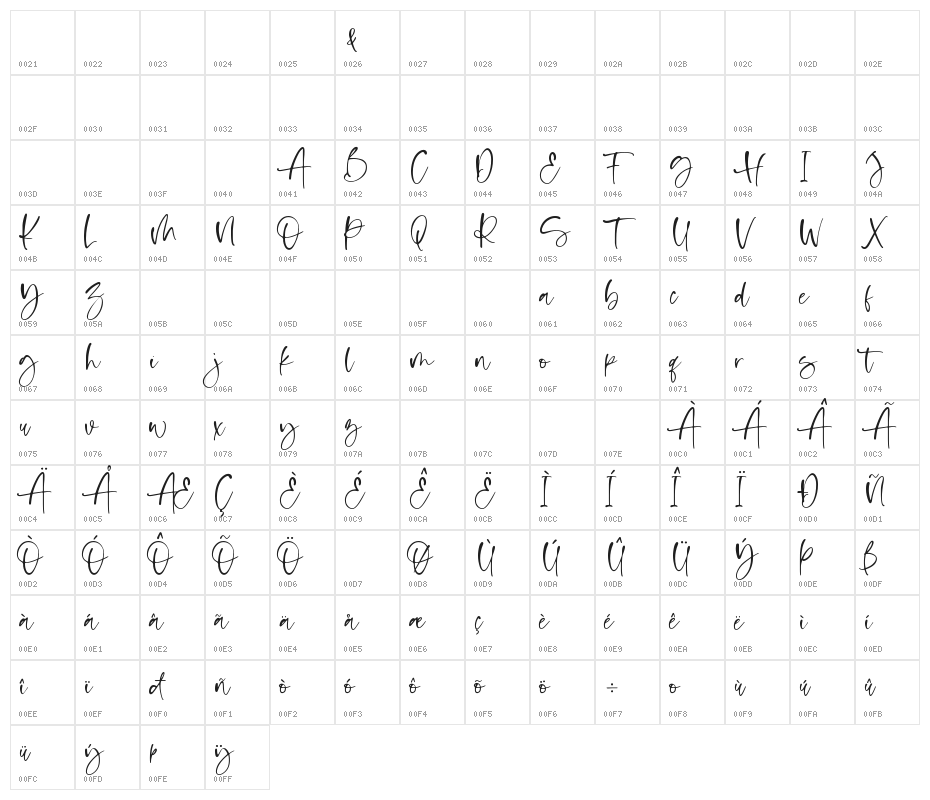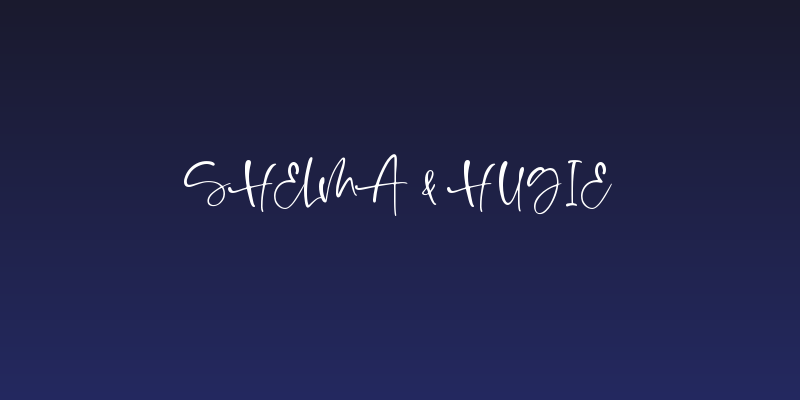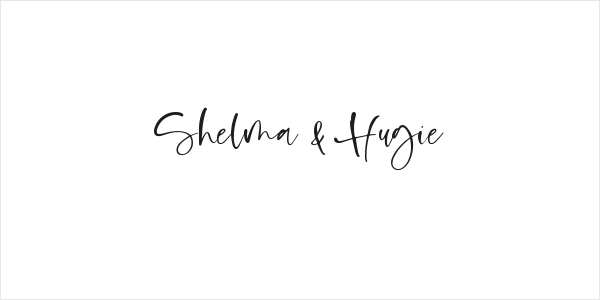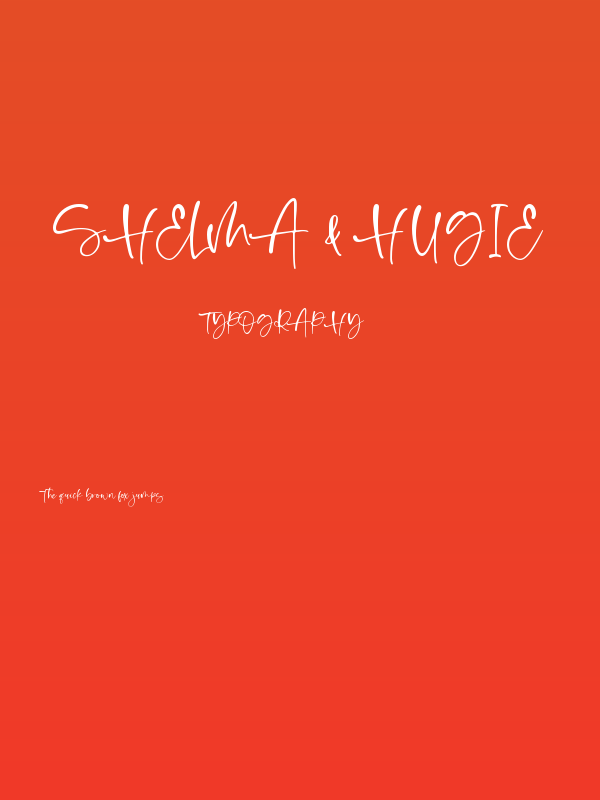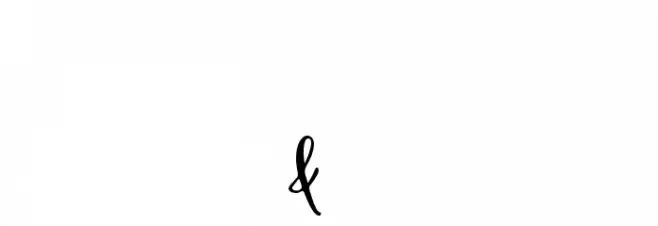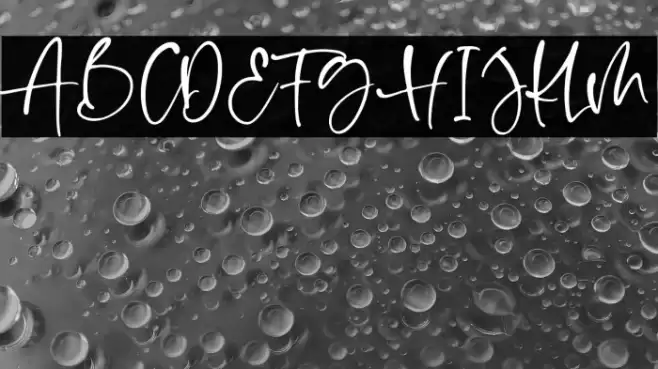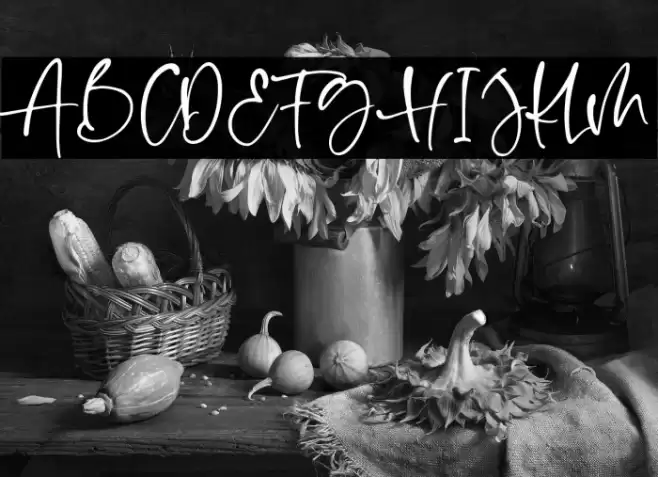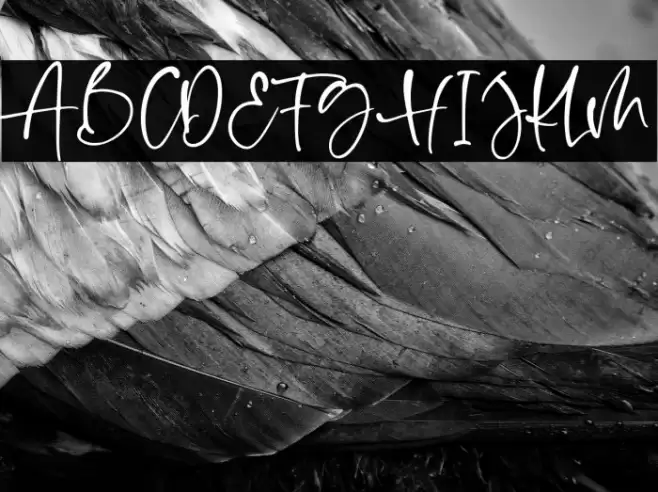
Shelma & Hugie Font
This font exudes a lively and expressive handwritten style, characterized by its flowing and interconnected letterforms. The strokes are smooth and fluid, giving it a dynamic and personal touch. The uppercase letters are bold and slightly exaggerated, while the lowercase letters maintain a consistent rhythm with elegant loops and curves. The ampersand symbol is particularly distinctive, adding a playful yet sophisticated flair. This font's overall appearance is both artistic and approachable, making it suitable for creative projects that require a personal and informal tone.
| Proposed Projects | Ideal for wedding invitations, greeting cards, personal branding, and creative social media graphics. |